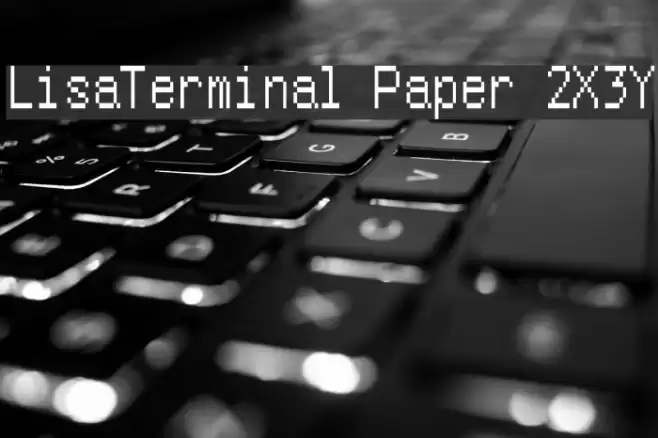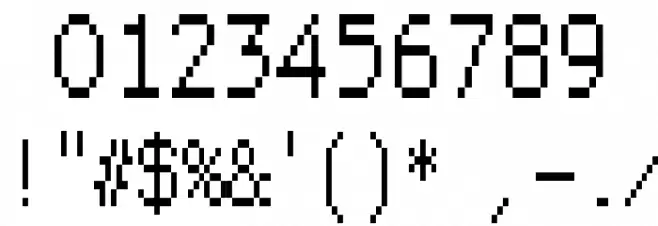
LisaTerminal Paper 2X3Y Font
LisaTerminal Paper 2X3Y Description
This font features a pixelated, monospaced design reminiscent of early computer and terminal screens. Each character is constructed with a grid-like precision, giving it a distinctly retro and digital appearance. The uniformity in character width and height ensures a consistent and orderly presentation, ideal for coding environments or designs that aim to evoke a sense of nostalgia for vintage computing. The characters are clearly legible, with sharp edges and a blocky structure that enhances readability in small sizes. This style is particularly effective in conveying a technical or futuristic aesthetic.
A pixelated, monospaced font with a retro digital style from Uncategorized fonts.
- Proposed Projects: Ideal for retro-themed designs, coding interfaces, digital art projects, and any creative work that requires a vintage computer aesthetic.
- Overall Style: Vintage
- Use Case: Headlines, Coding, Digital Art